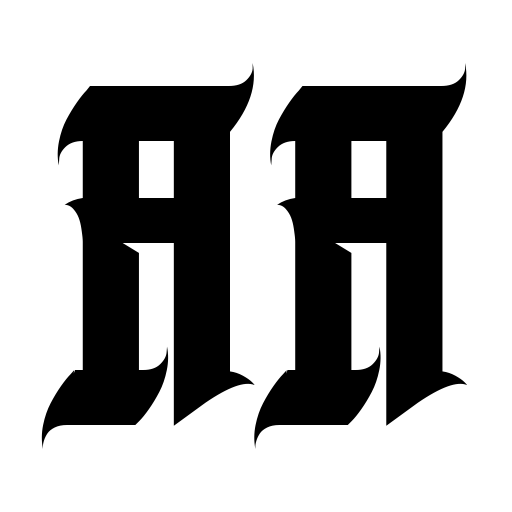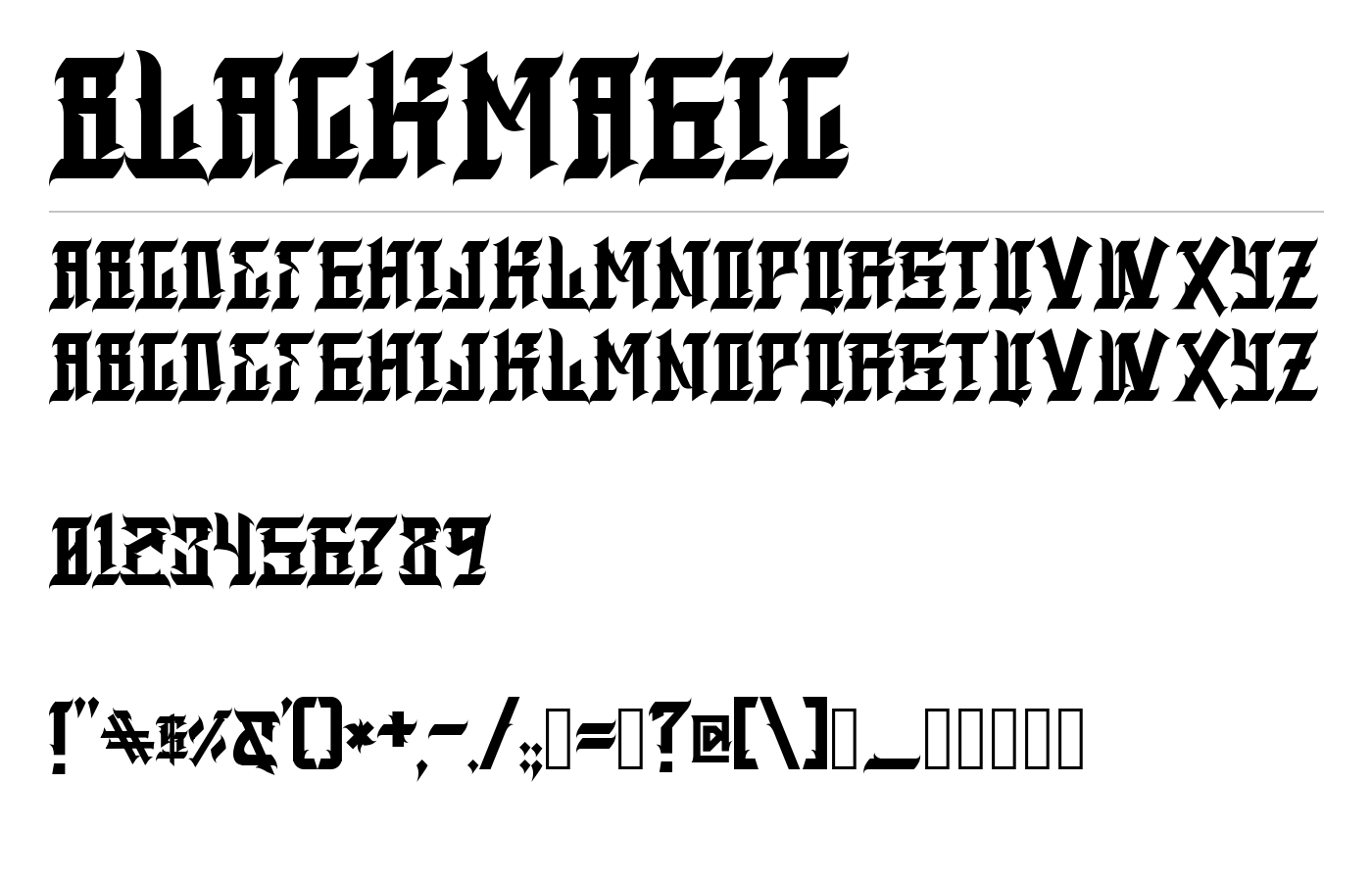
Blackmagic is a bold, condensed blackletter-style font with sharp, angular strokes and high contrast between thick and thin lines. Its intricate, gothic-inspired letterforms convey a strong, dramatic personality perfect for edgy branding, posters, and headlines that demand attention and a sense of dark elegance. This font works best in display settings where its unique, intense style can shine without compromising readability.
blackmagic Font
About blackmagic Font